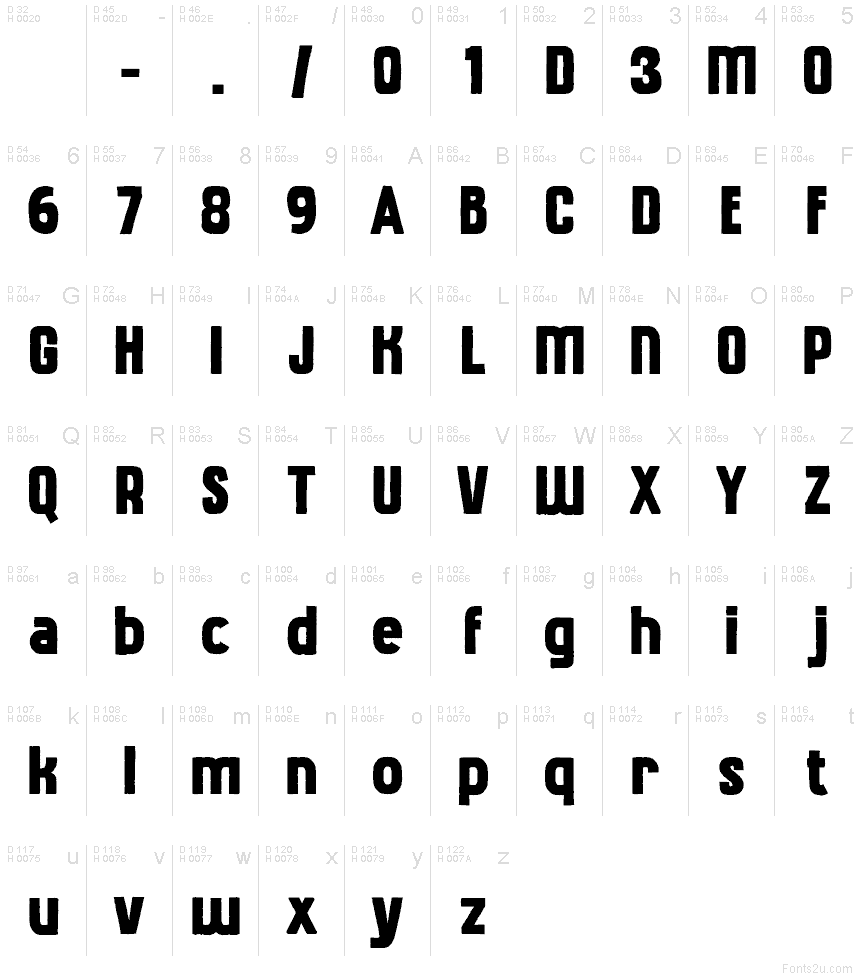
Dhino Regular
Dhino font by Almaz Studio is a bold display typeface with an industrial and vintage flair. Its rugged texture and eye-catching presence set it apart, making it ideal for standout designs. With a mid-20th-century influence, Dhino captures strength and resilience, bringing depth to any visual project.
This free display font is versatile for poster designs, branding materials, book covers, website headers, product packaging, logos, signage, tech presentations, vintage-themed projects, event invitations, and more.